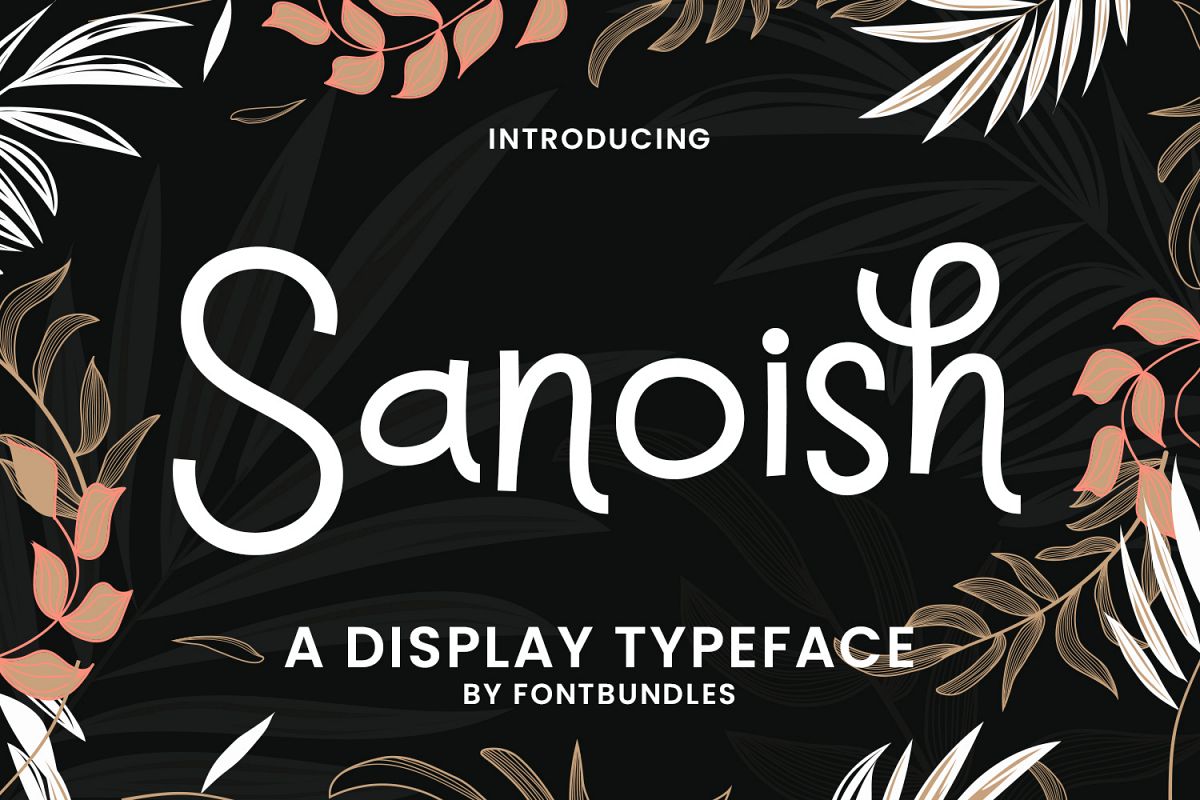
Sanoish is a display typeface. Perfect for quotes, name card, business card, wedding needs, label, branding, logotype, headline, tittle, and many more.